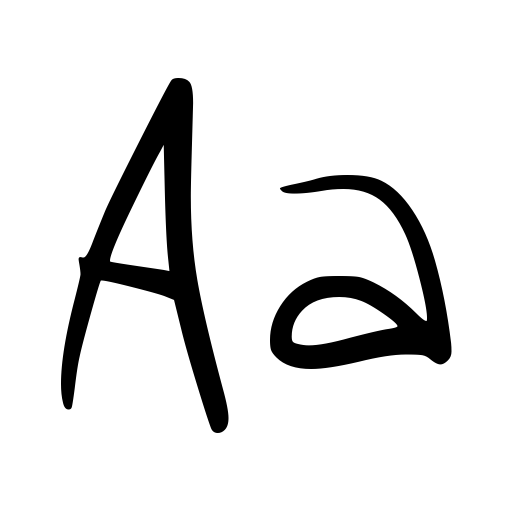
Brown Pen is a delicate, handwritten script font that captures the natural flow and charm of casual penmanship. Its slender, slightly slanted letterforms with smooth, organic strokes create an elegant yet approachable feel, making it perfect for personal branding, invitations, and creative projects that seek a warm and authentic touch. This font works well in design contexts where a friendly, intimate style is desired without sacrificing legibility.
Brown Pen Font
About Brown Pen Font
| Font family | Brown Pen Font |
| Designer | Suzuran |